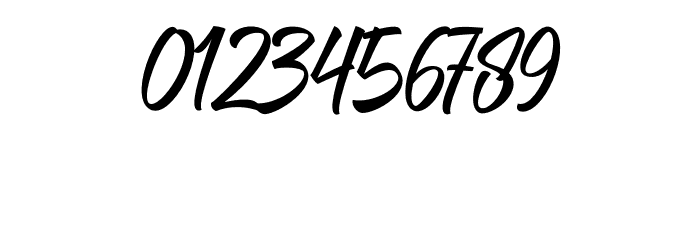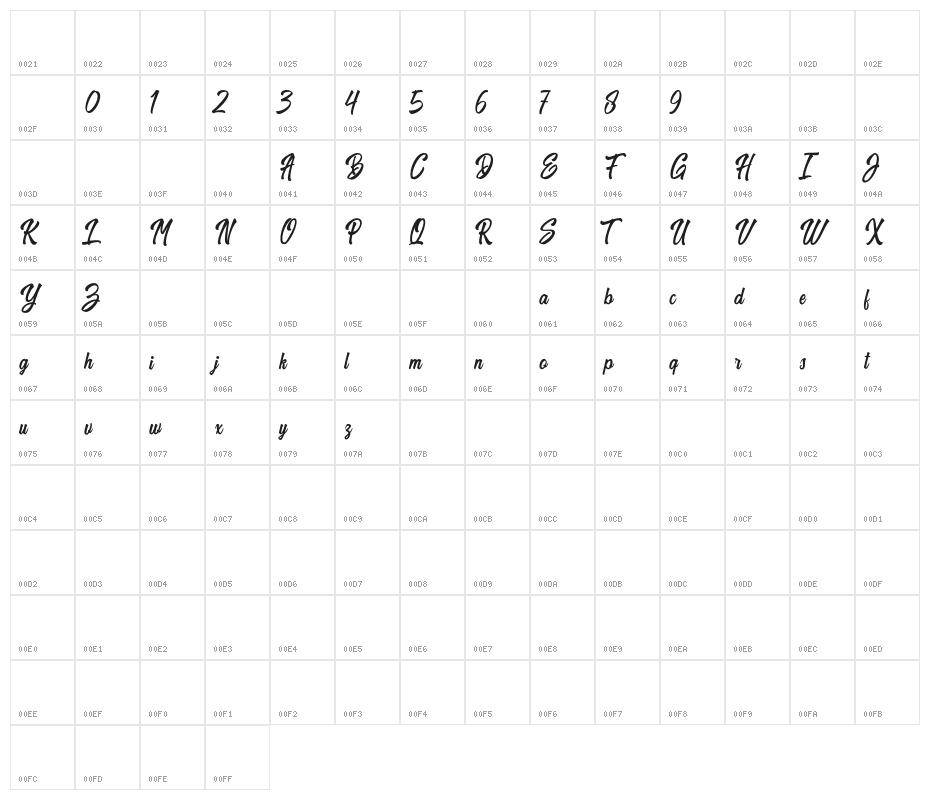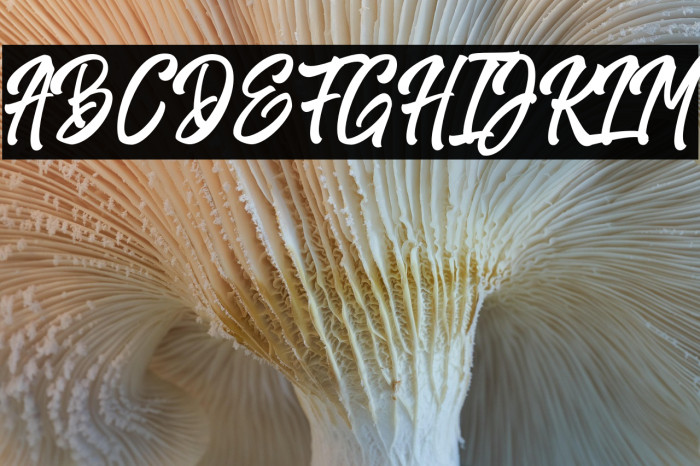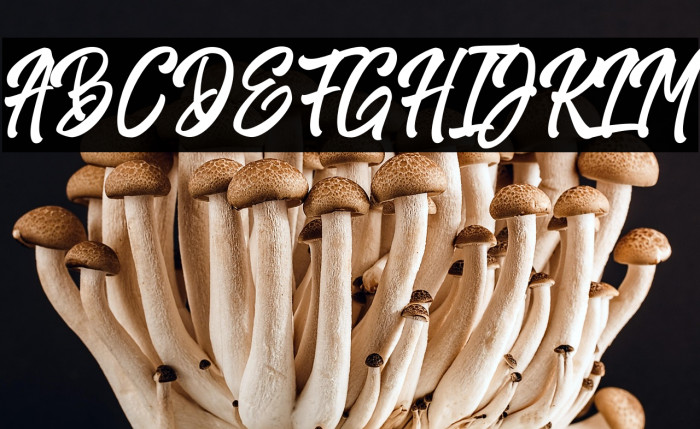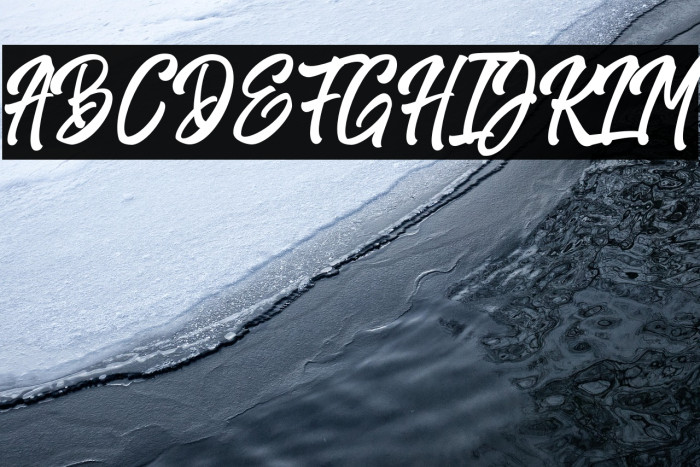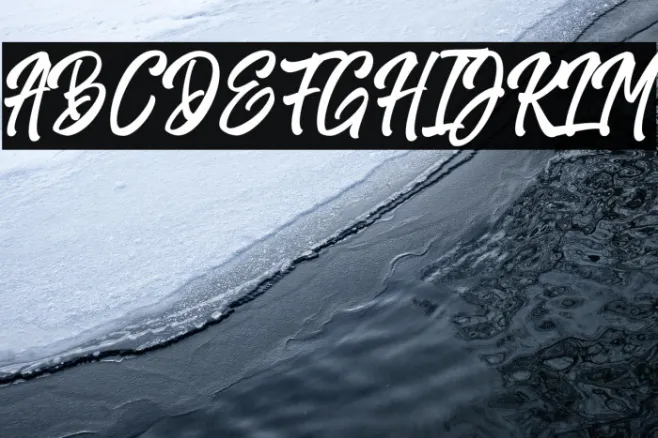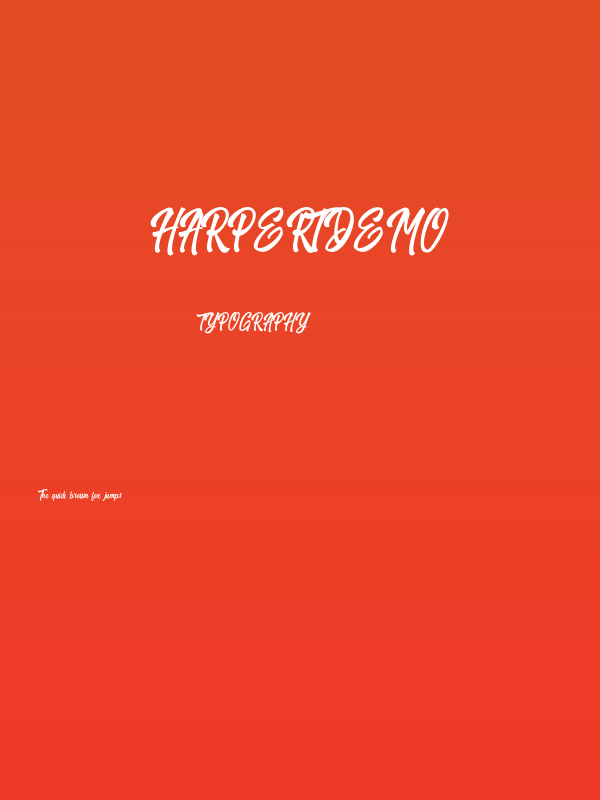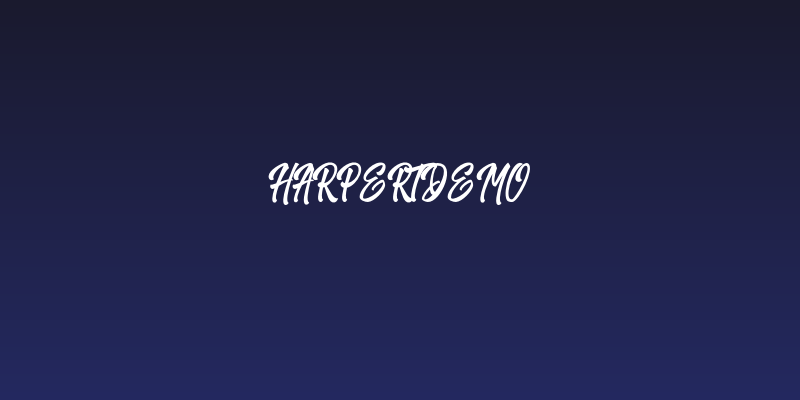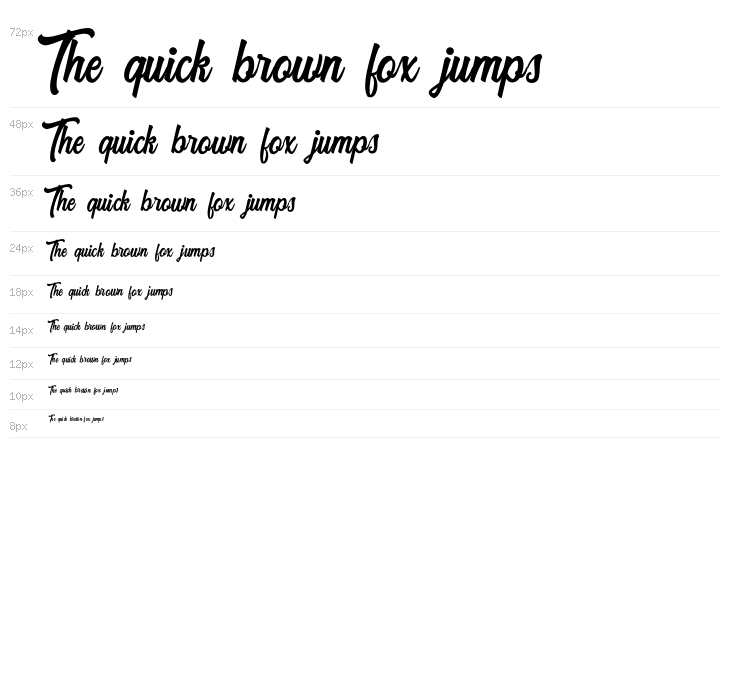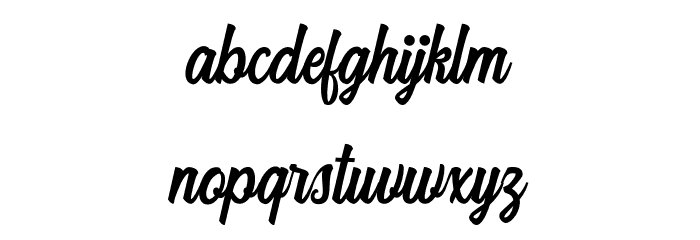
HarpertDemo Font
HarpertDemo Description
This font exhibits a bold, cursive style with a flowing, handwritten appearance. The uppercase letters are elegantly curved, with a consistent slant that adds a dynamic feel. The lowercase characters maintain a smooth, connected script that enhances readability while retaining a personal touch. Numbers are styled to match the fluidity of the letters, ensuring a cohesive look across all characters. The font's design is both sophisticated and approachable, making it suitable for a variety of creative applications. Its bold strokes and consistent weight give it a strong presence, while the script style adds a touch of elegance.